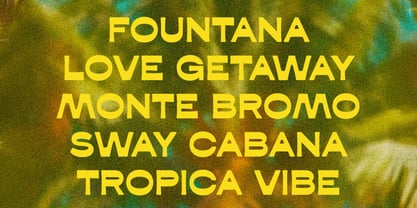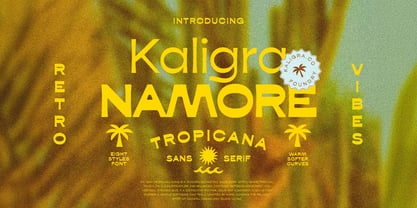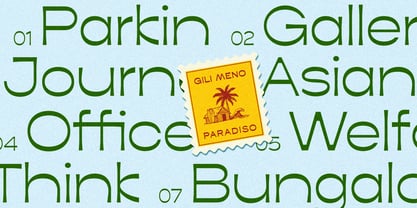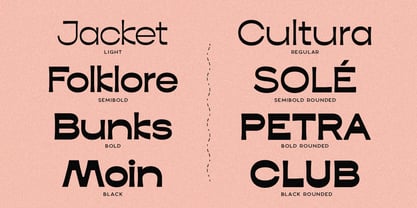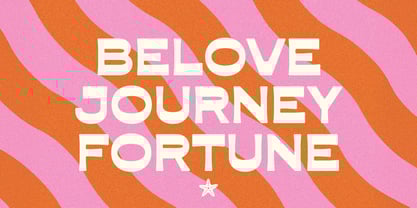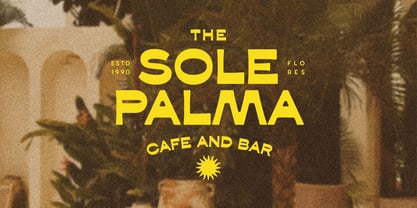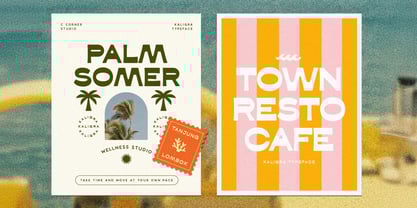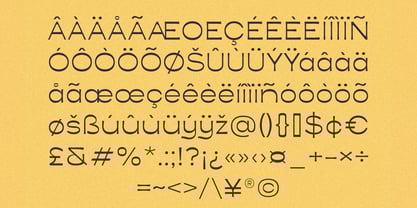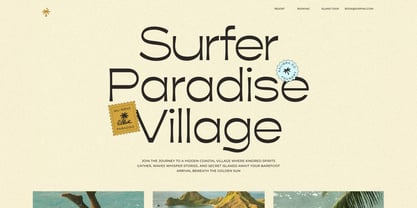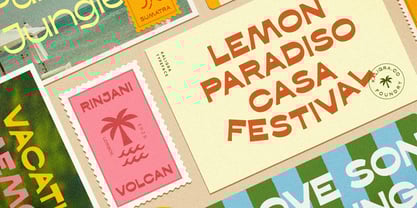
KLG Kaligra
by Kaligra.co
The KLG Kaligra Font Family was designed by Kurt Harahap and published by Kaligra.co. KLG Kaligra contains 8 styles and family package options.
Kaligra Tropicana Sans is a modern geometric sans-serif with a warm tropical touch. Its clean structure and balanced contrast between horizontal and vertical strokes give it a distinctive rhythm, calm yet confident. Each letter carries a gentle softness that feels crafted by hand, echoing the relaxed spirit of coastal design and island living. From light to bold, including smooth rounded styles, Kaligra shines in logos, travel editorials, fashion labels, websites, packaging, and lifestyle branding that seek modern simplicity with a hint of sun-soaked character. Features: - 8 Styles: Light, Regular, Semibold, Bold, Black + Rounded versions - Geometric construction with balanced horizontal & vertical weight - Warm curves and natural proportions for a relaxed tropical vibe - Excellent legibility for headlines, branding, and UI design - Uppercase & lowercase, numerals, punctuation, and multilingual support --- HOW TO ACCESS ALTERNATE CHARACTERS Open glyphs panel: In Adobe Photoshop go to Window - glyphs In Adobe Illustrator go to Type - glyphs
Designers: Kurt Harahap
Publisher: Kaligra.co
Foundry: Kaligra.co
Design Owner: Kaligra.co